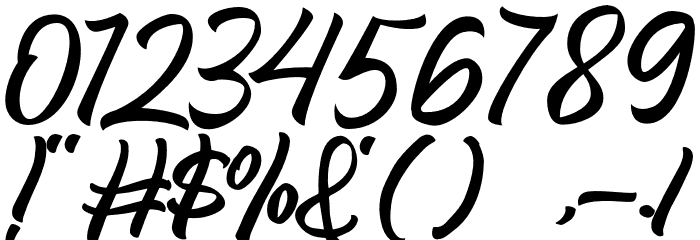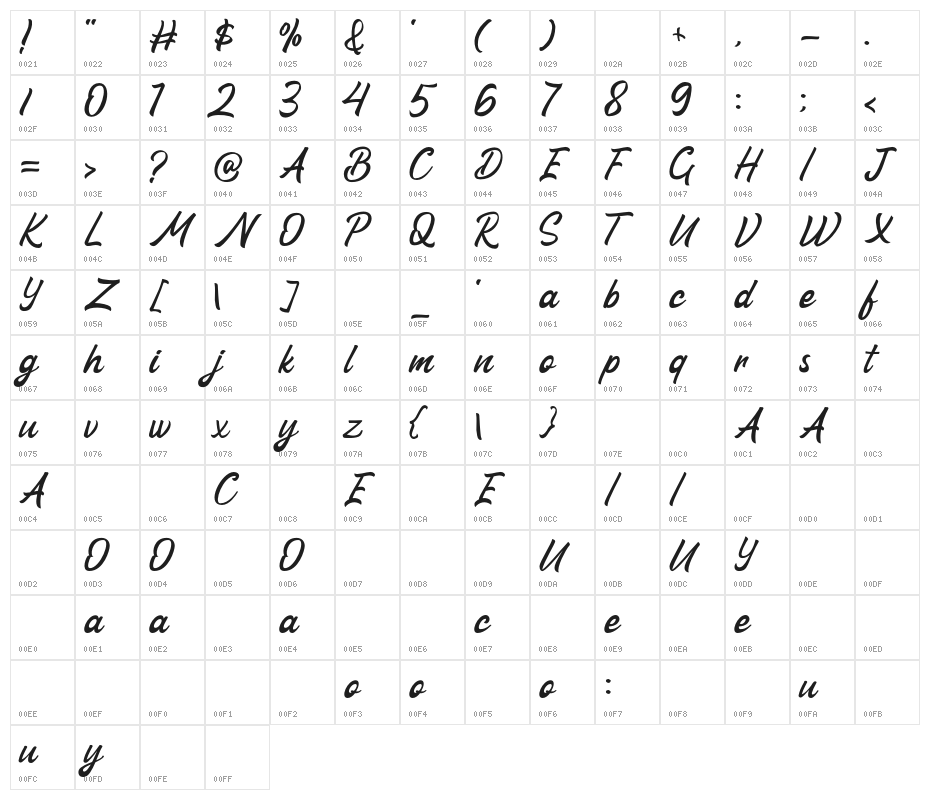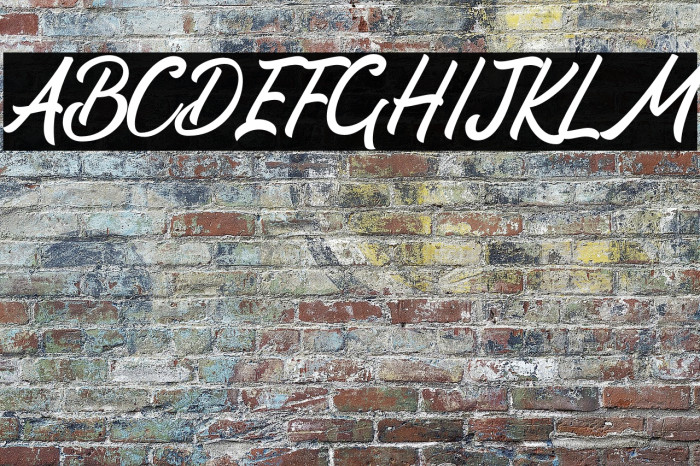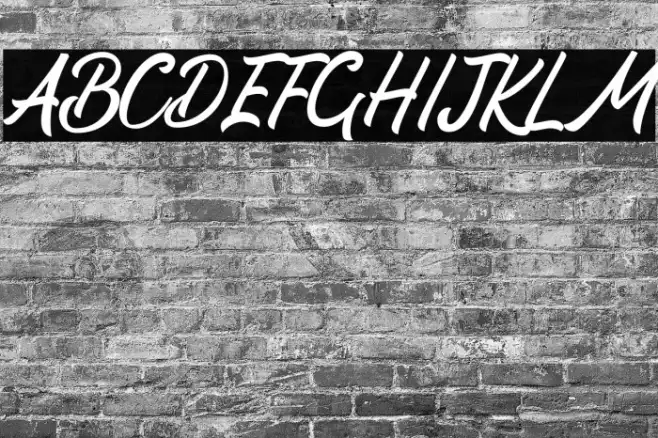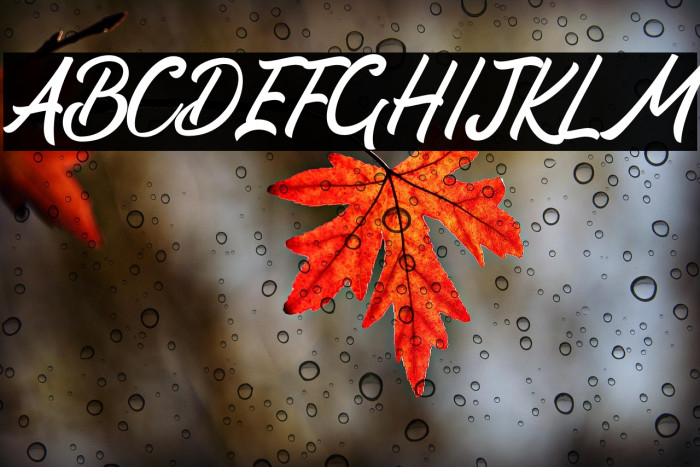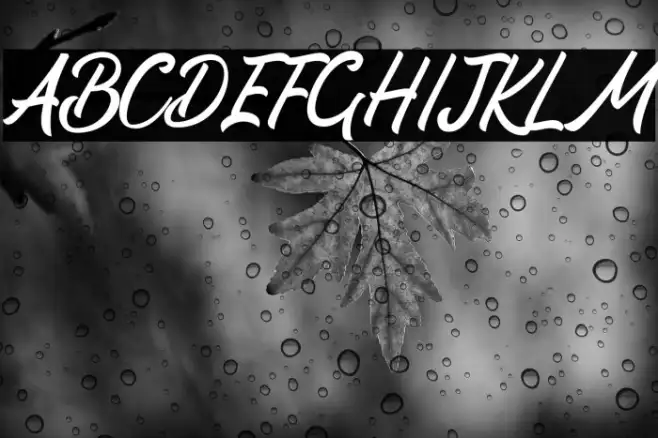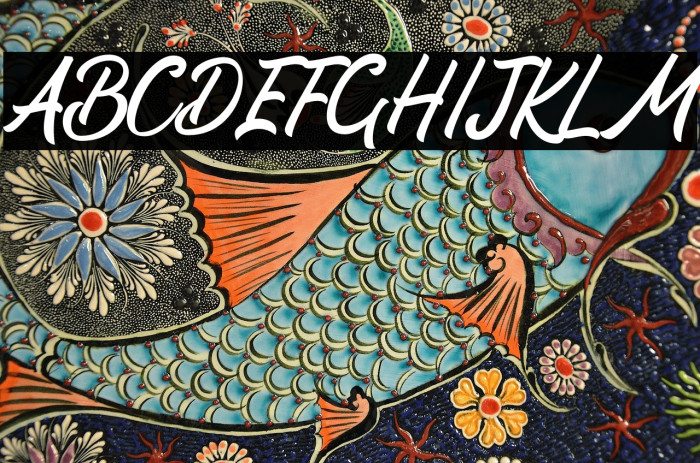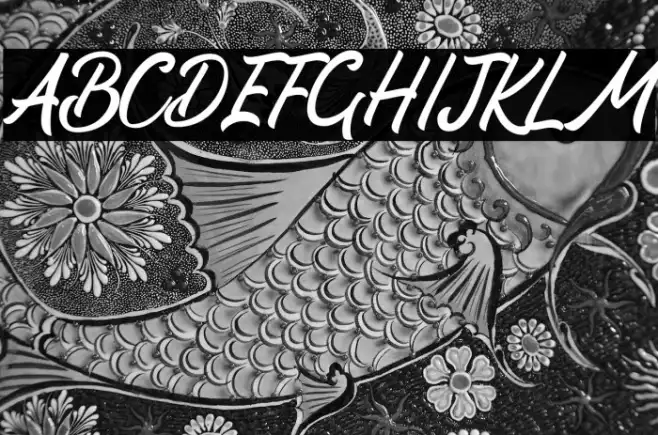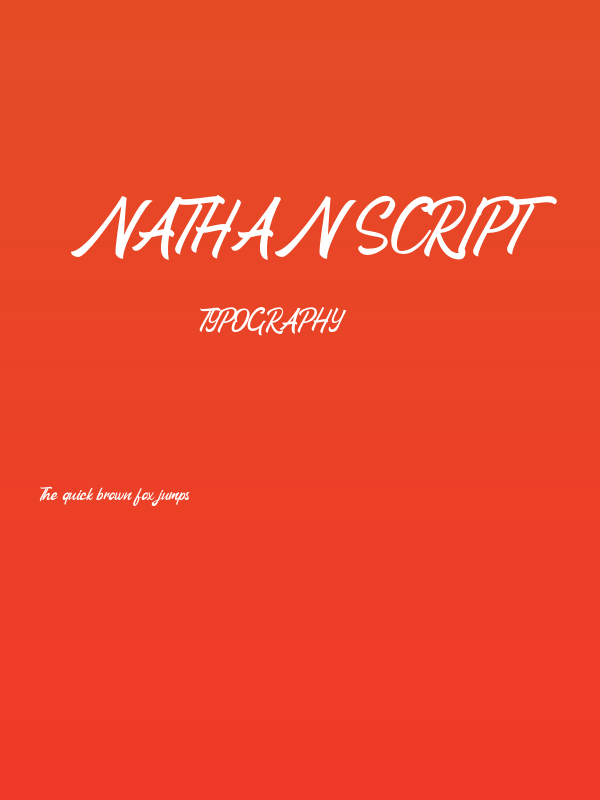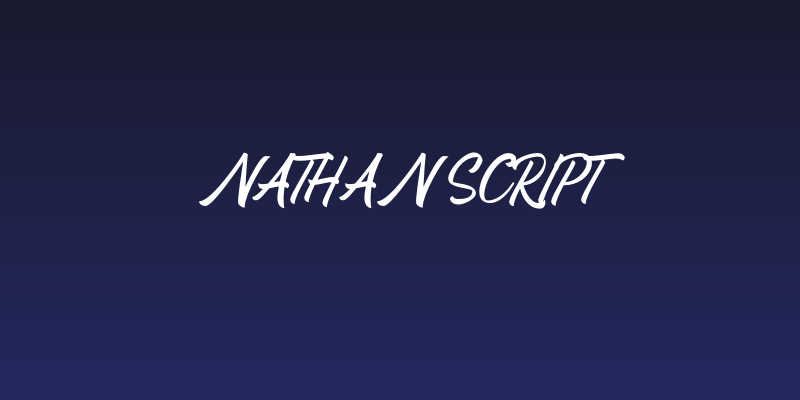
Nathan Script Font
Nathan Script Description
This script font exudes elegance and fluidity, characterized by its smooth, flowing strokes that mimic natural handwriting. The uppercase letters are bold and slightly slanted, giving them a dynamic and lively appearance. The lowercase letters maintain a consistent rhythm, with gentle curves and loops that enhance readability. Numbers and special characters are crafted with the same attention to detail, ensuring a cohesive look across all glyphs. The overall design is both sophisticated and approachable, making it suitable for a variety of creative applications.
Overall StyleElegant and Dynamic
Use CaseLogos, Invitations, Branding
Proposed ProjectsIdeal for wedding invitations, greeting cards, branding, and logo design, where a personal and stylish touch is desired.